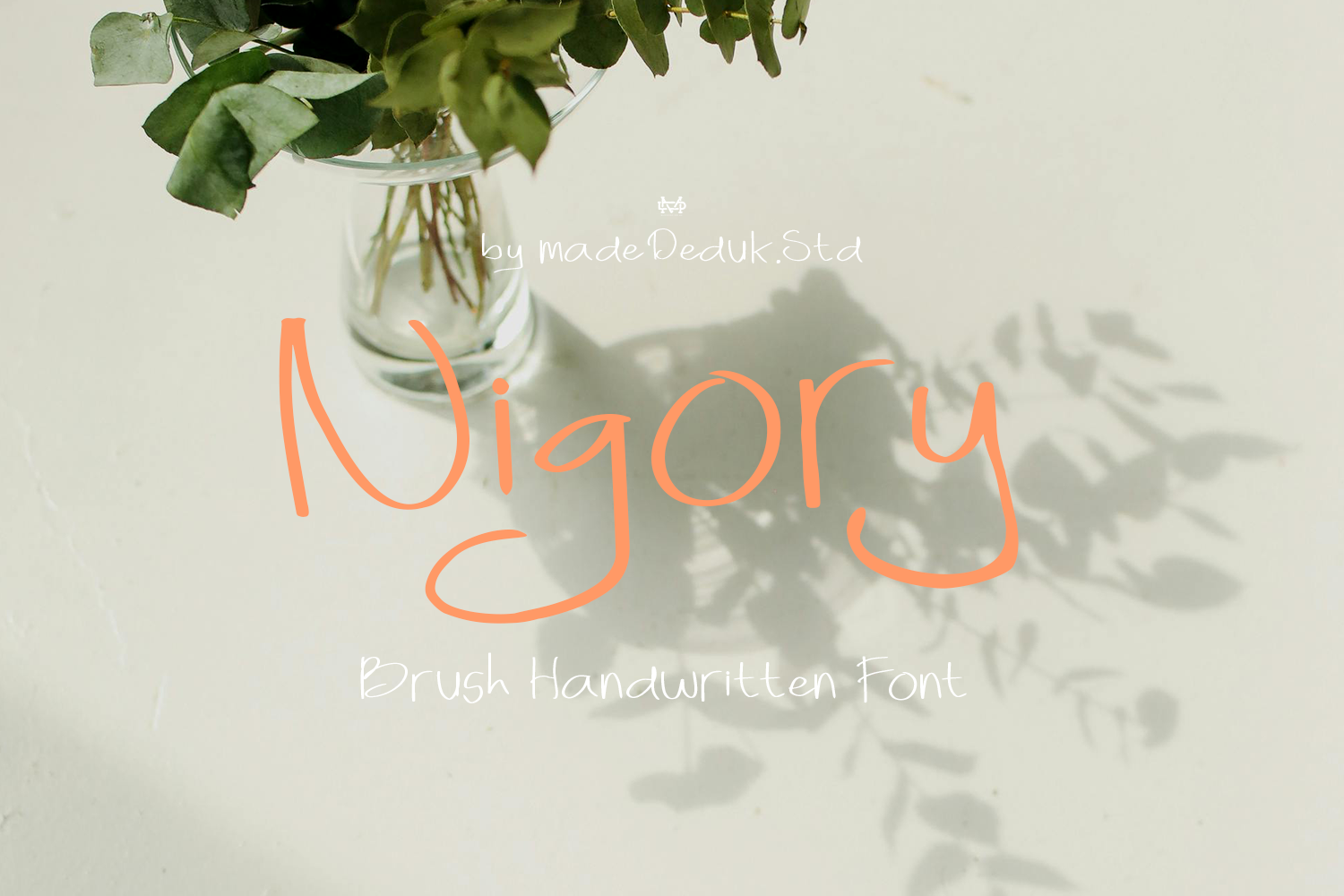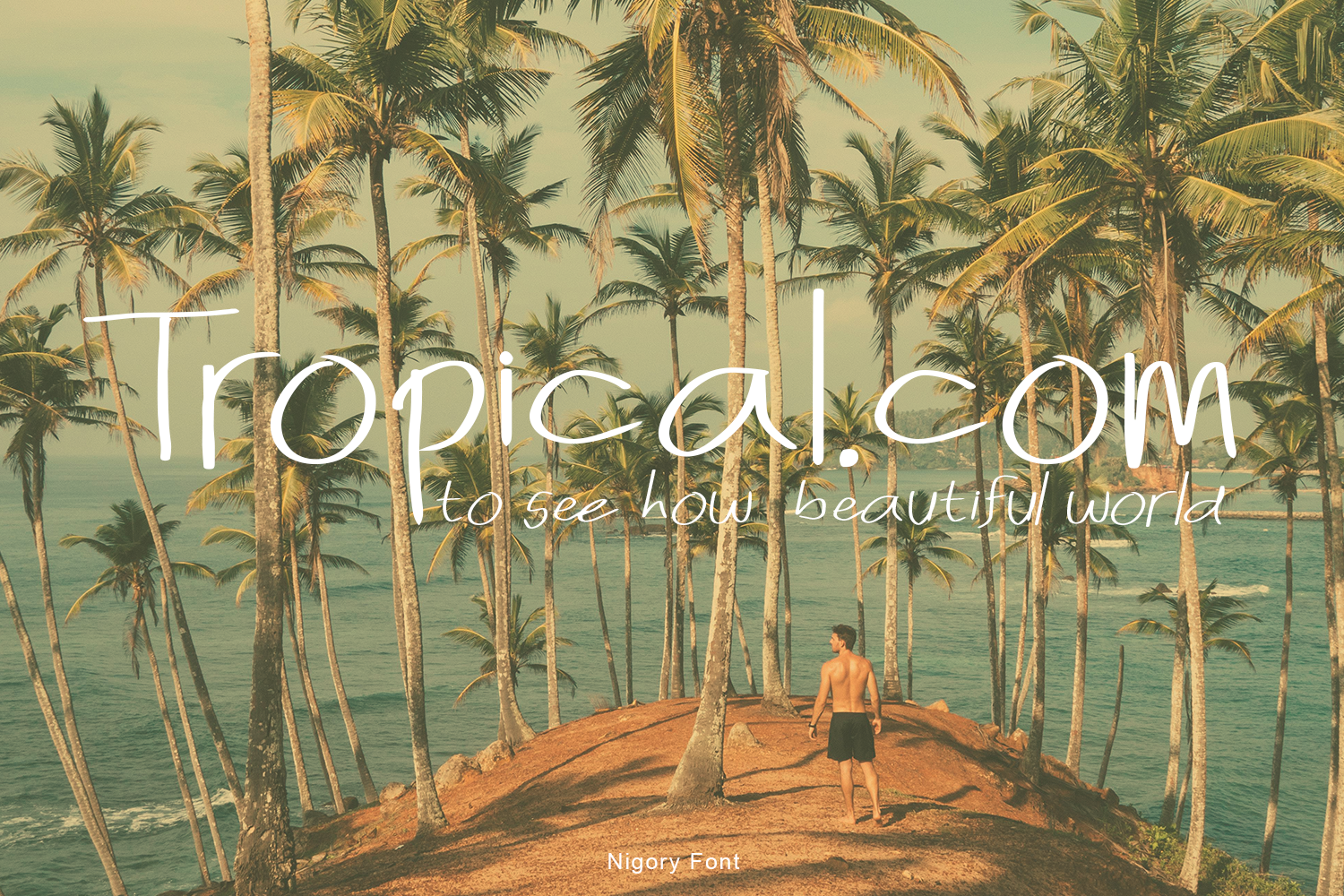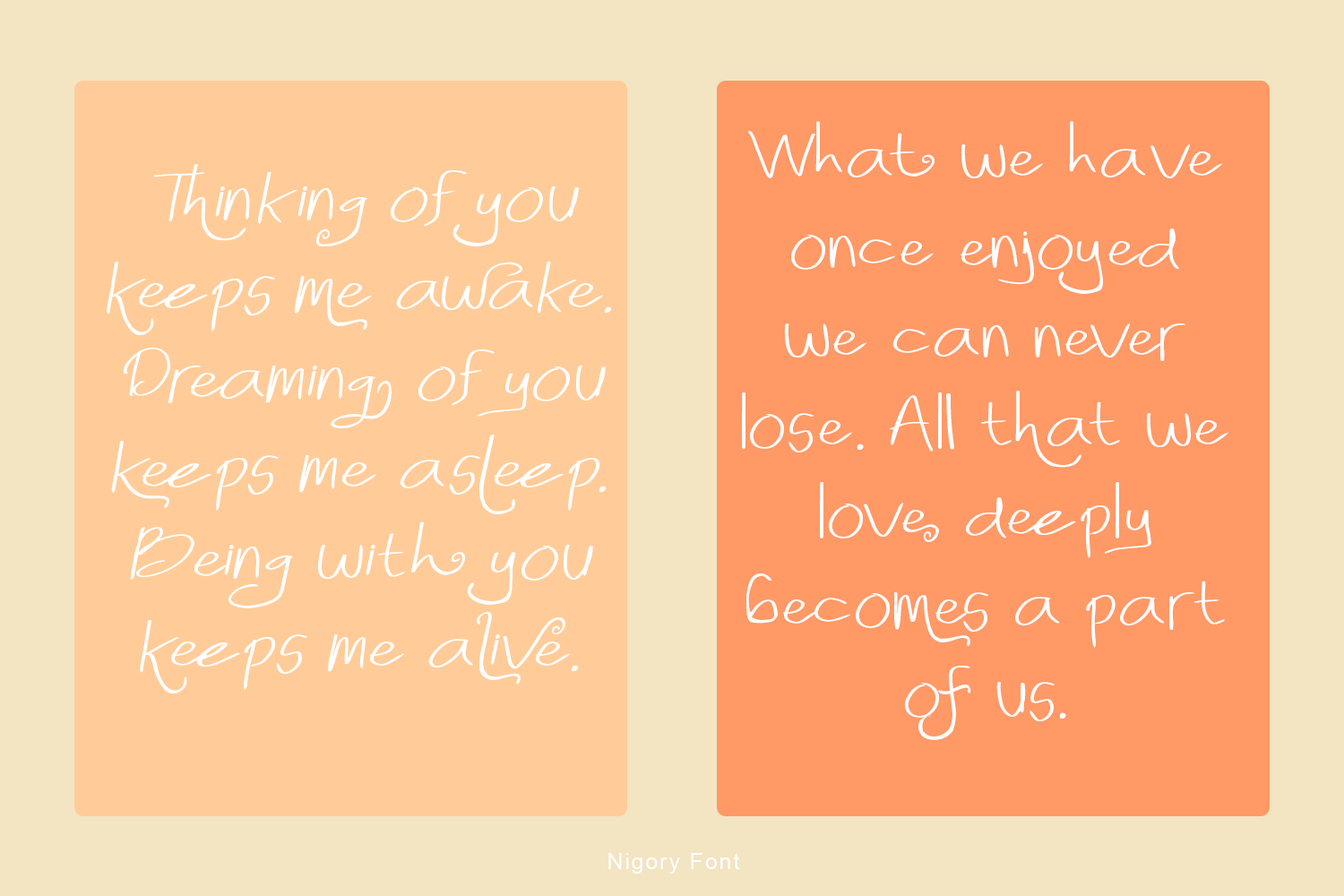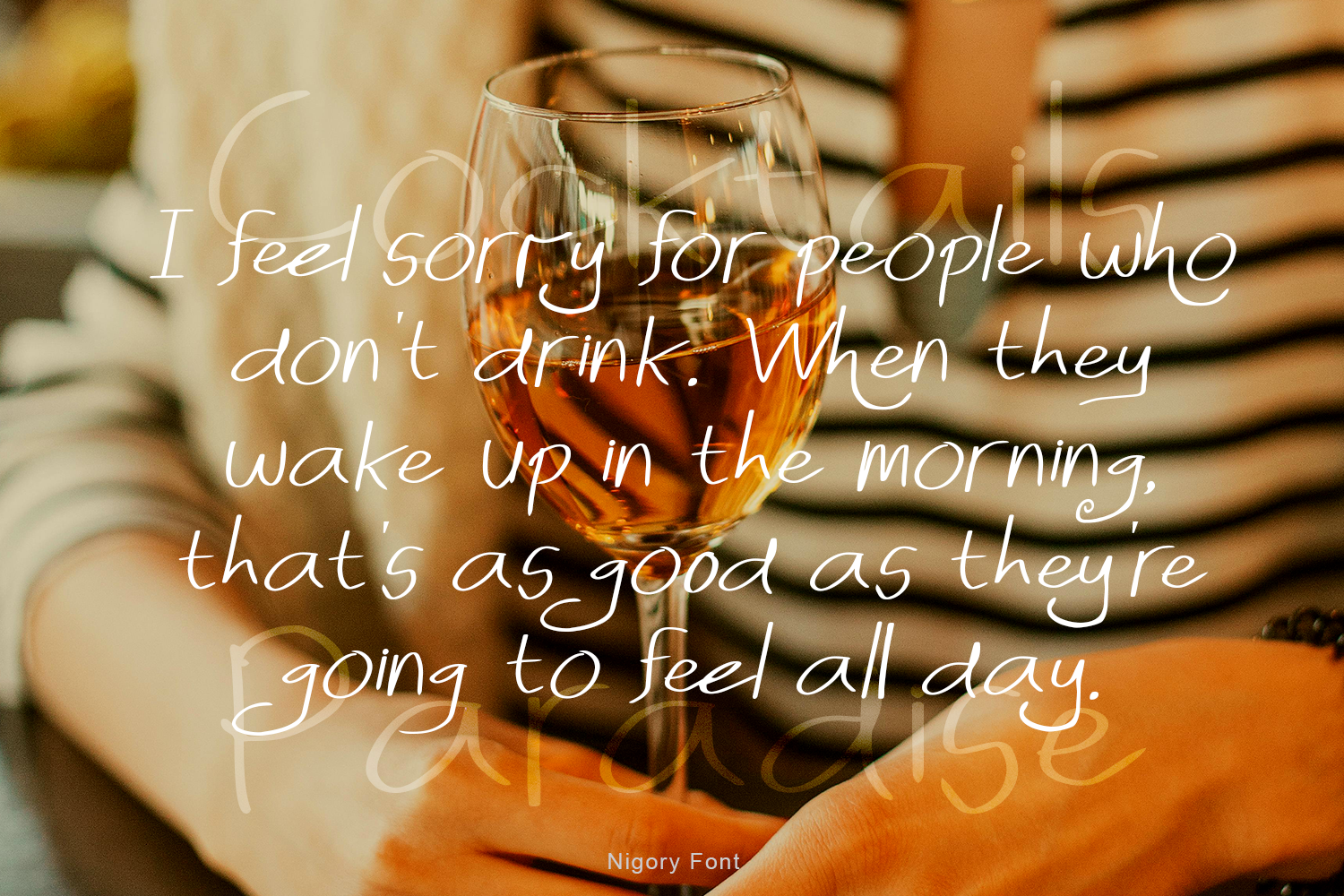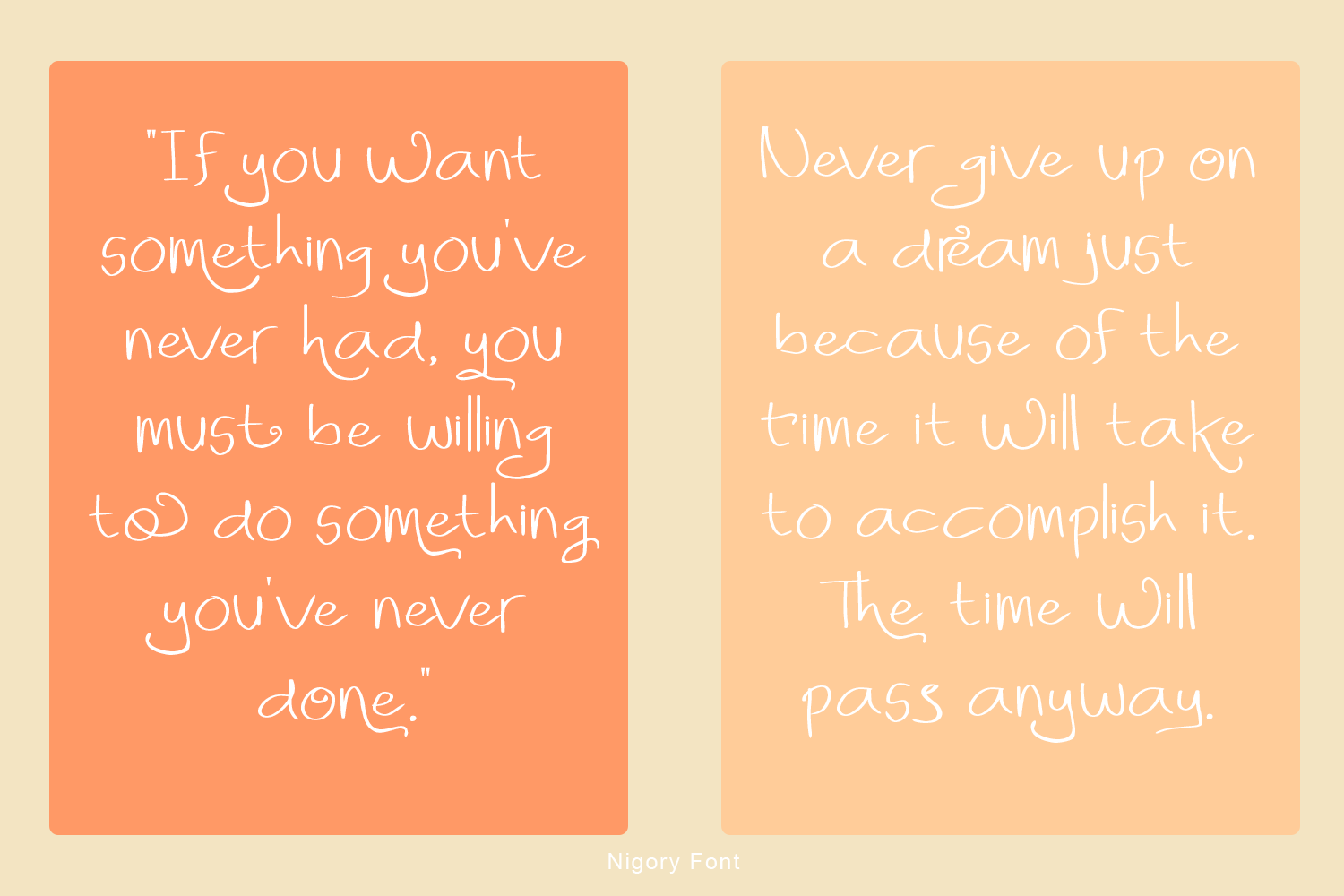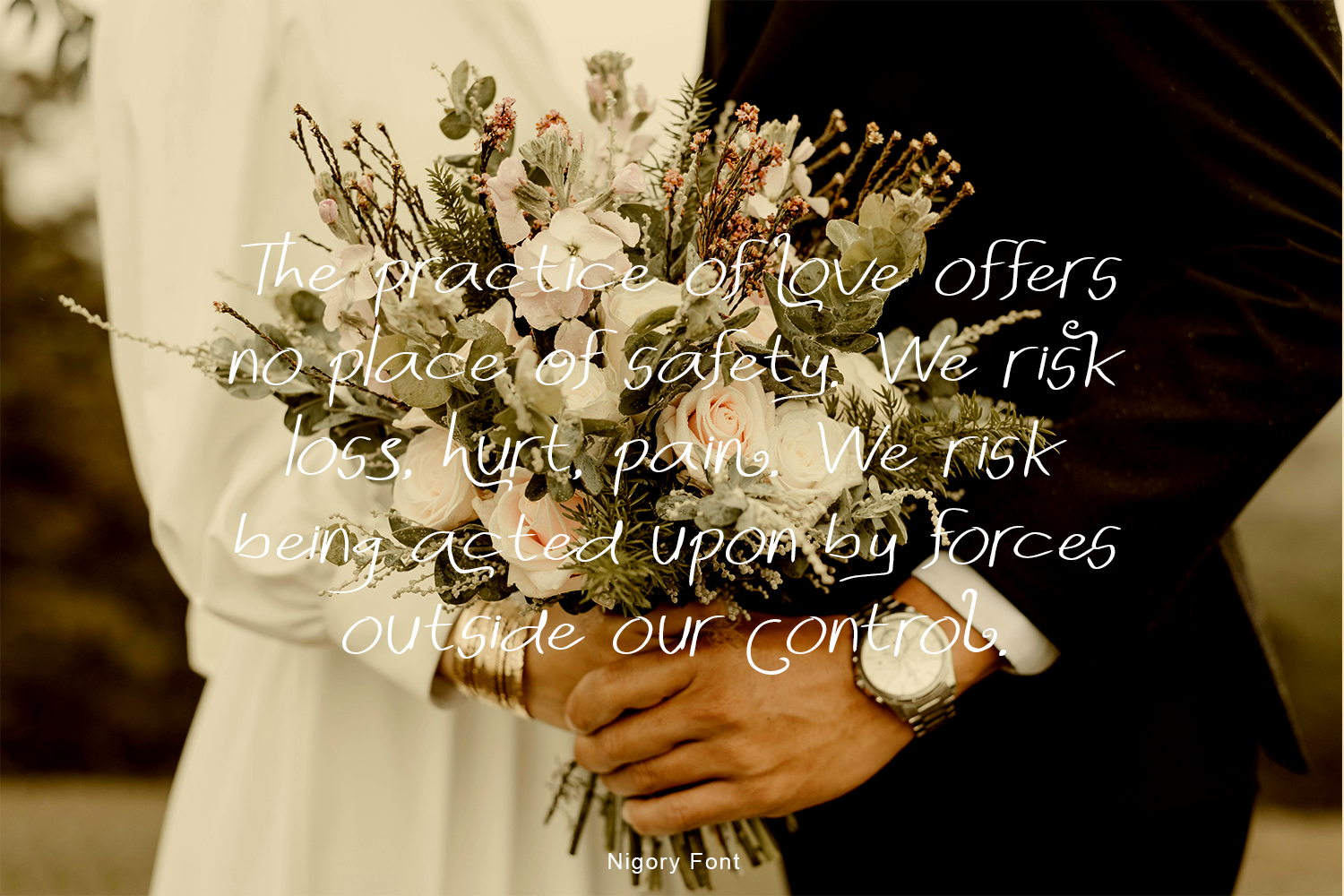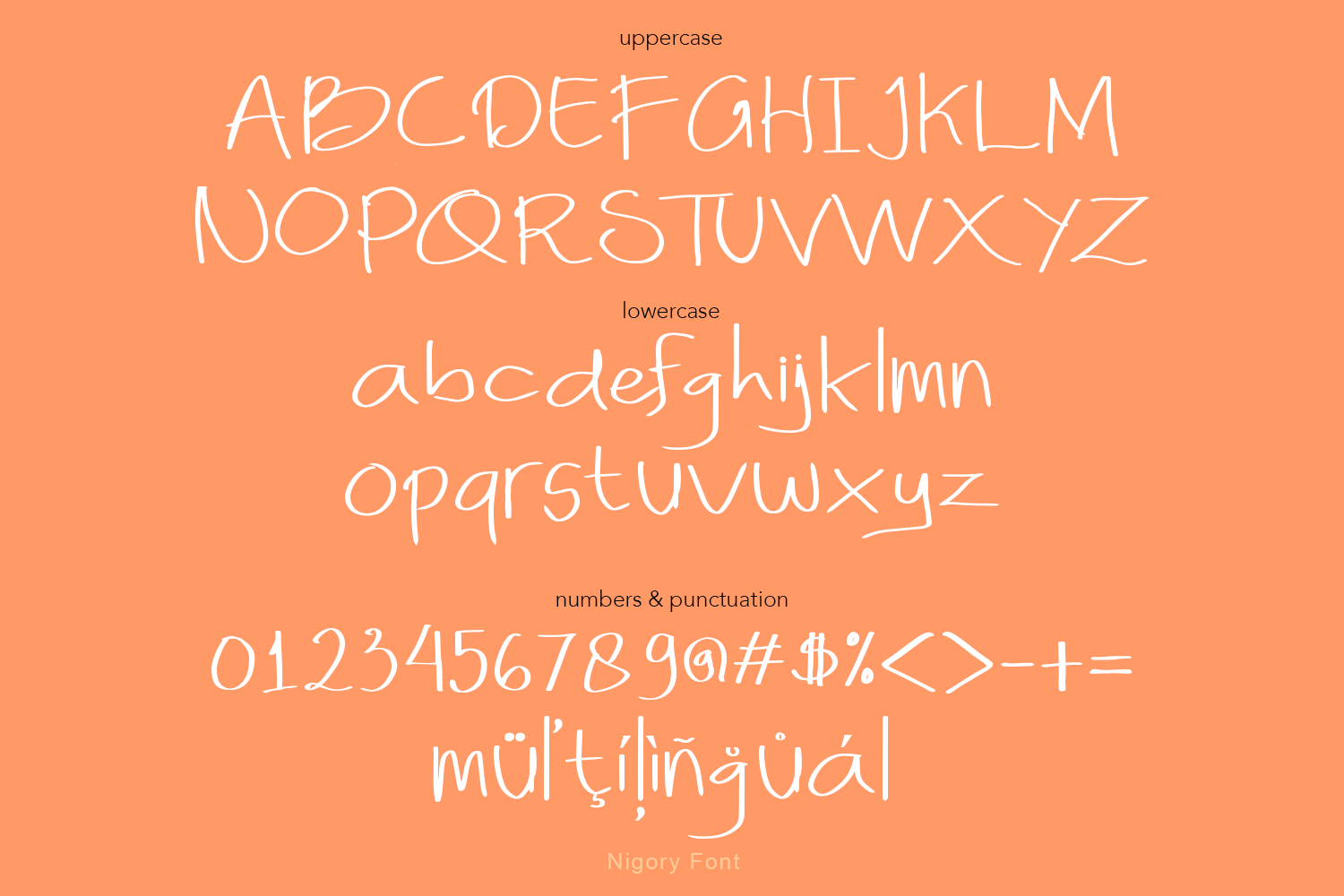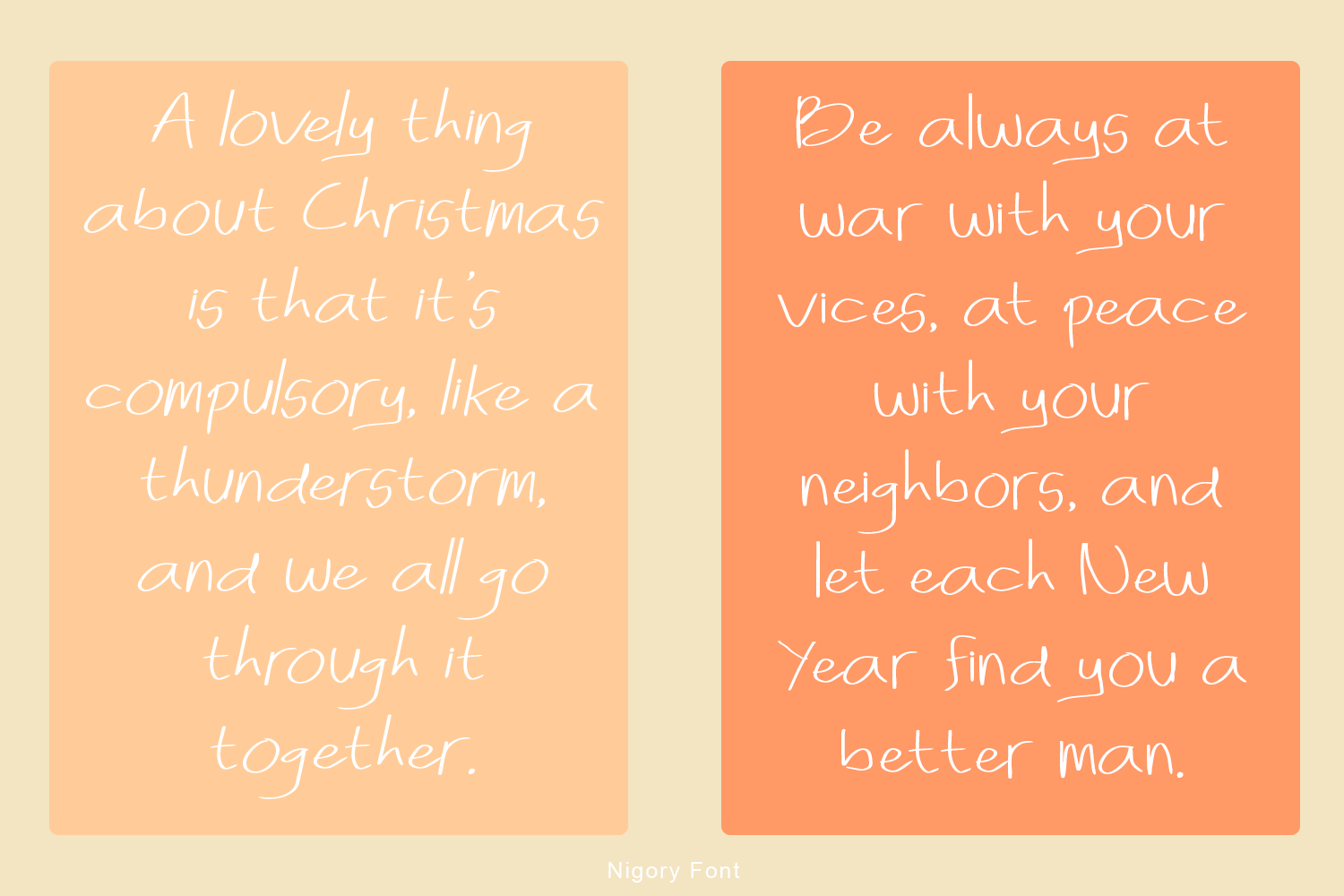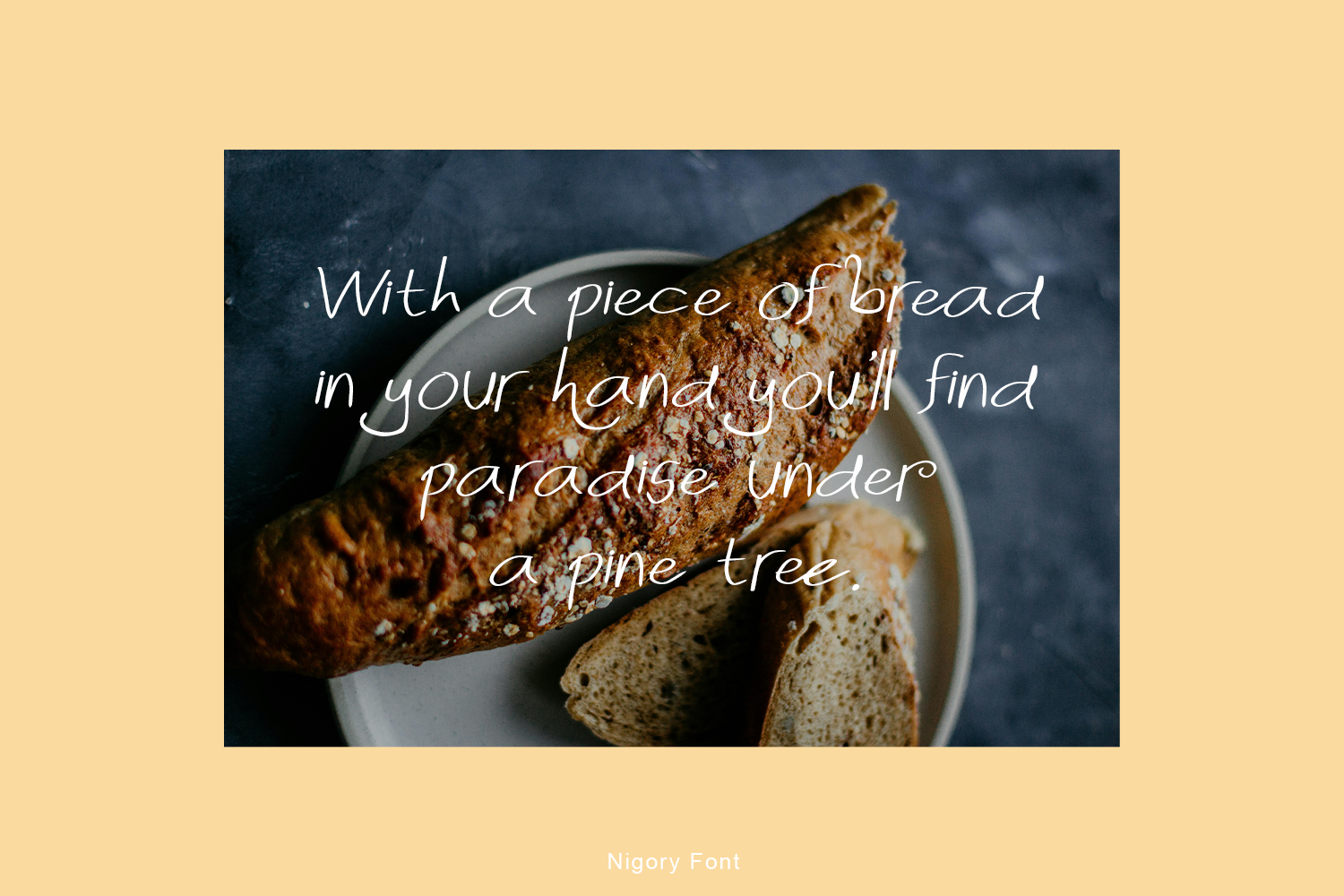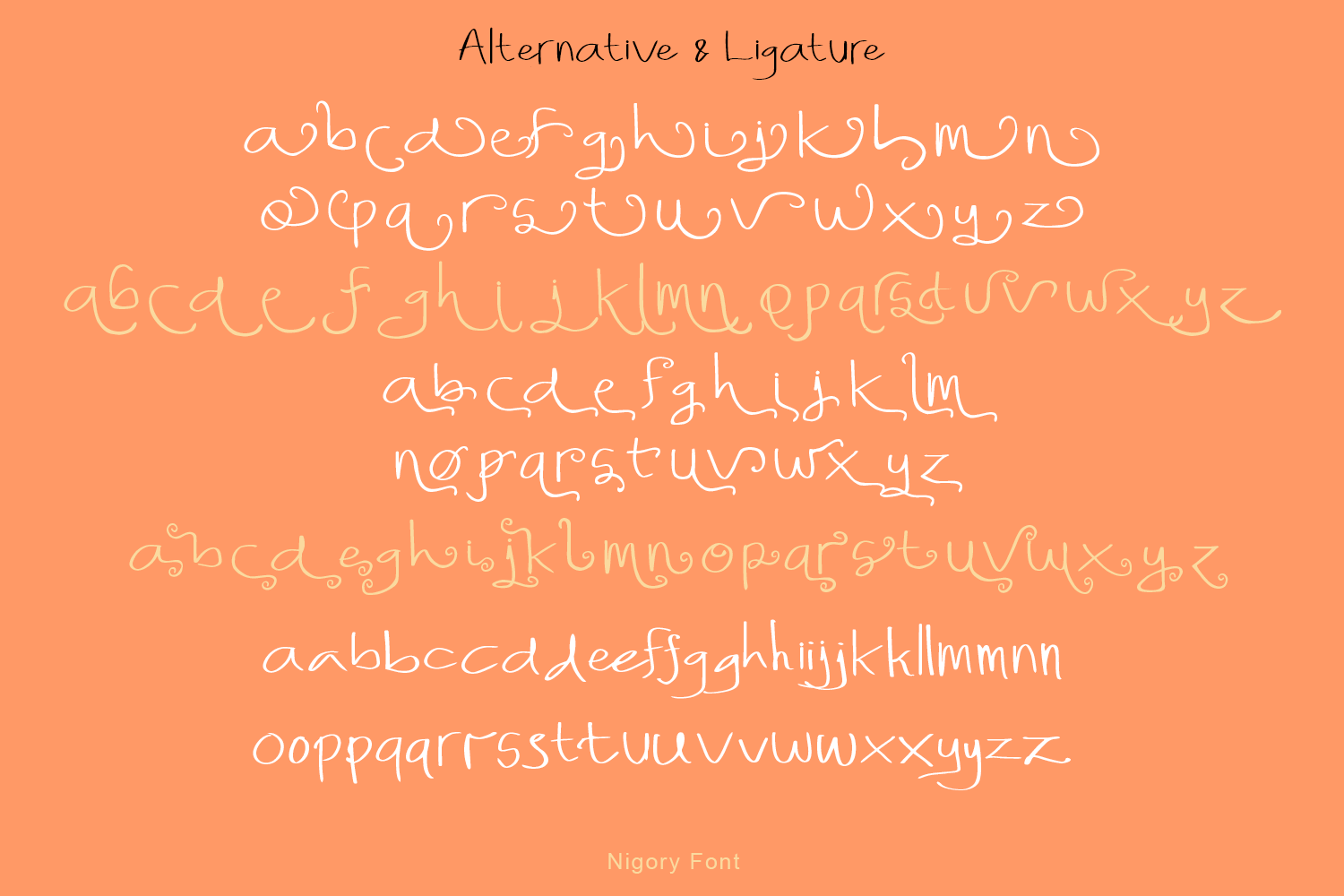
Nigory Handwritten Font
Introduce Nigory is a brush handwritten font to give an incredible impression for all your project design come with a lot ligatures and Alternative to make everything look realistic handmade handwritten.
• Uppercase & Lowercase
• Number & Symbol
• International Glyphs
• Multilingual Support
• Ligature
• Alternative